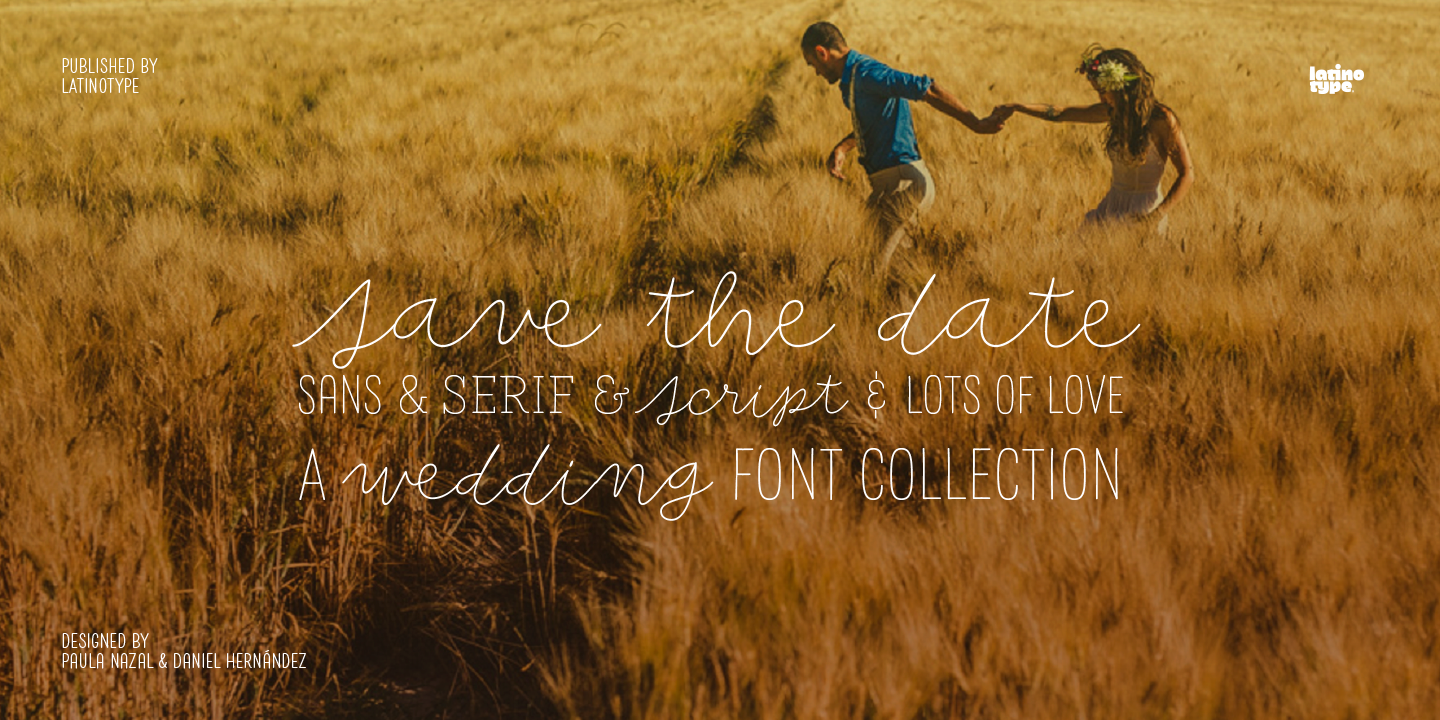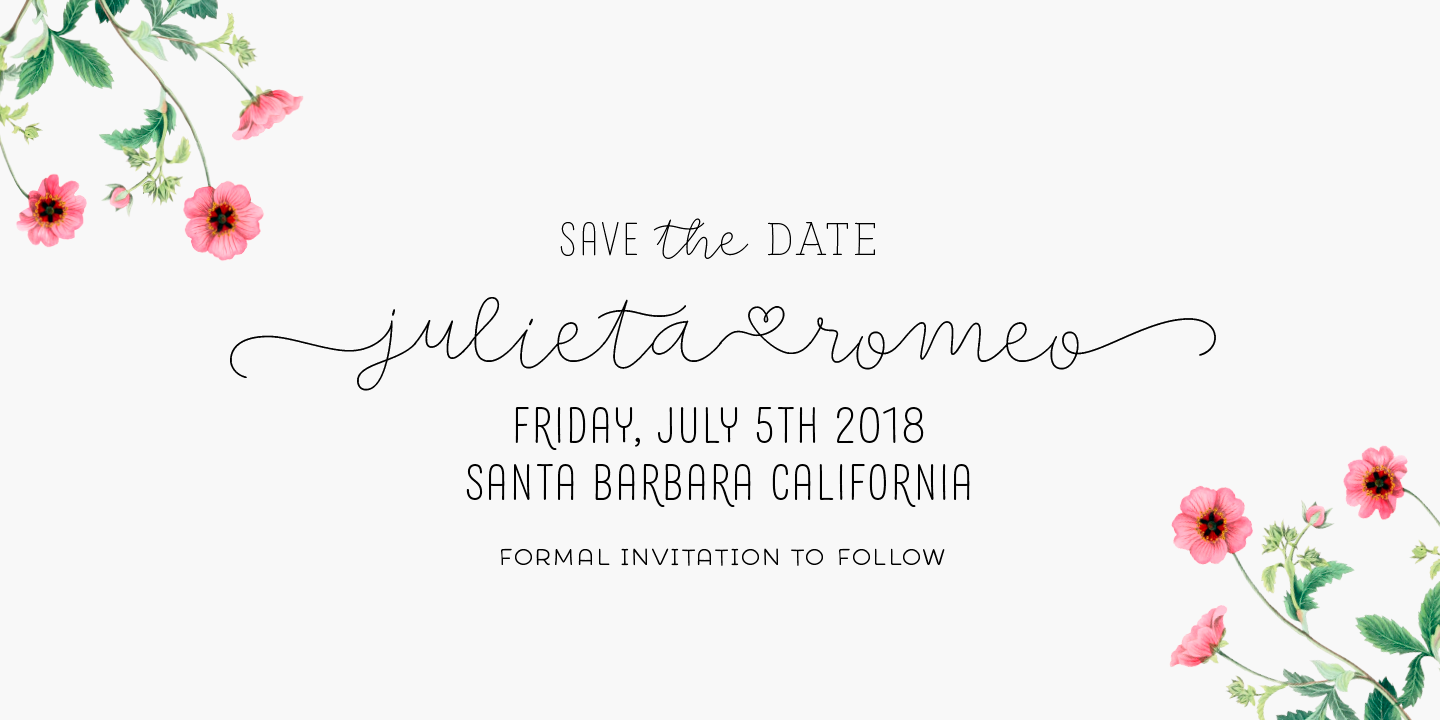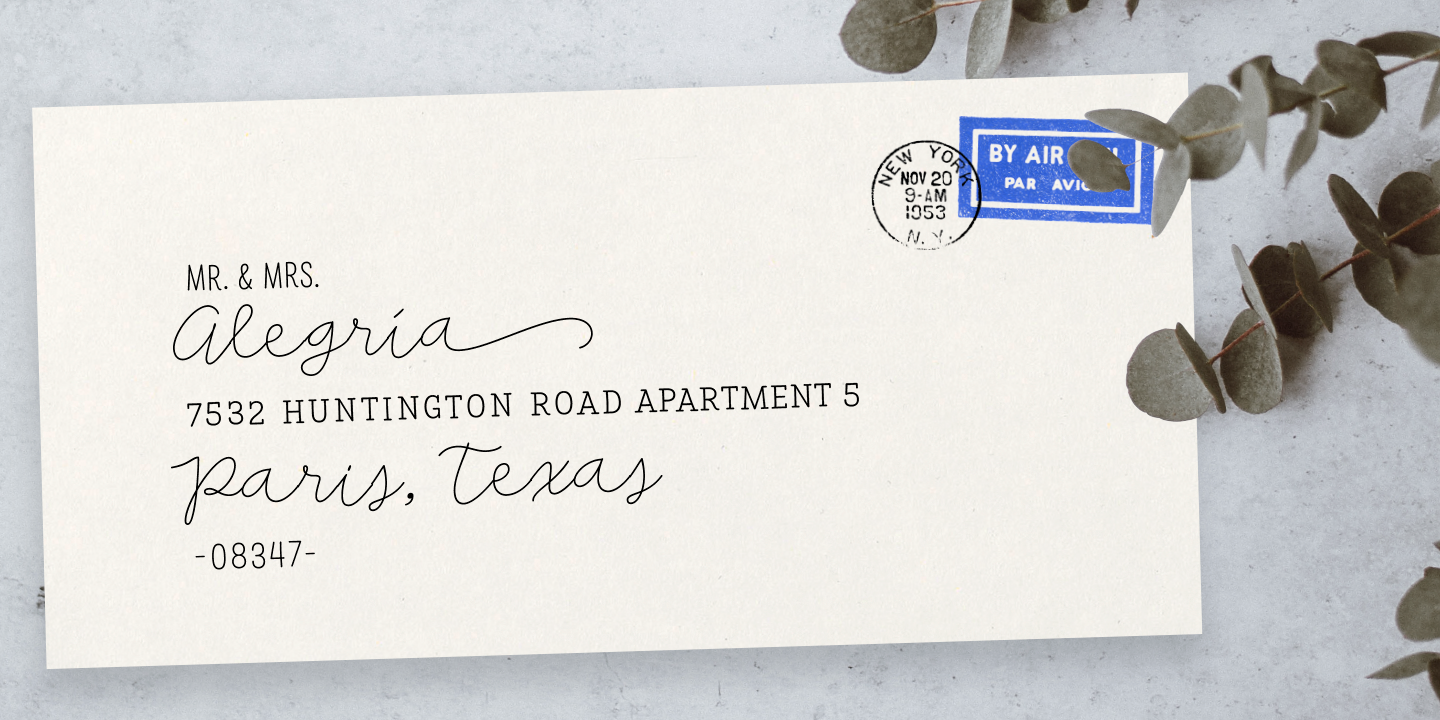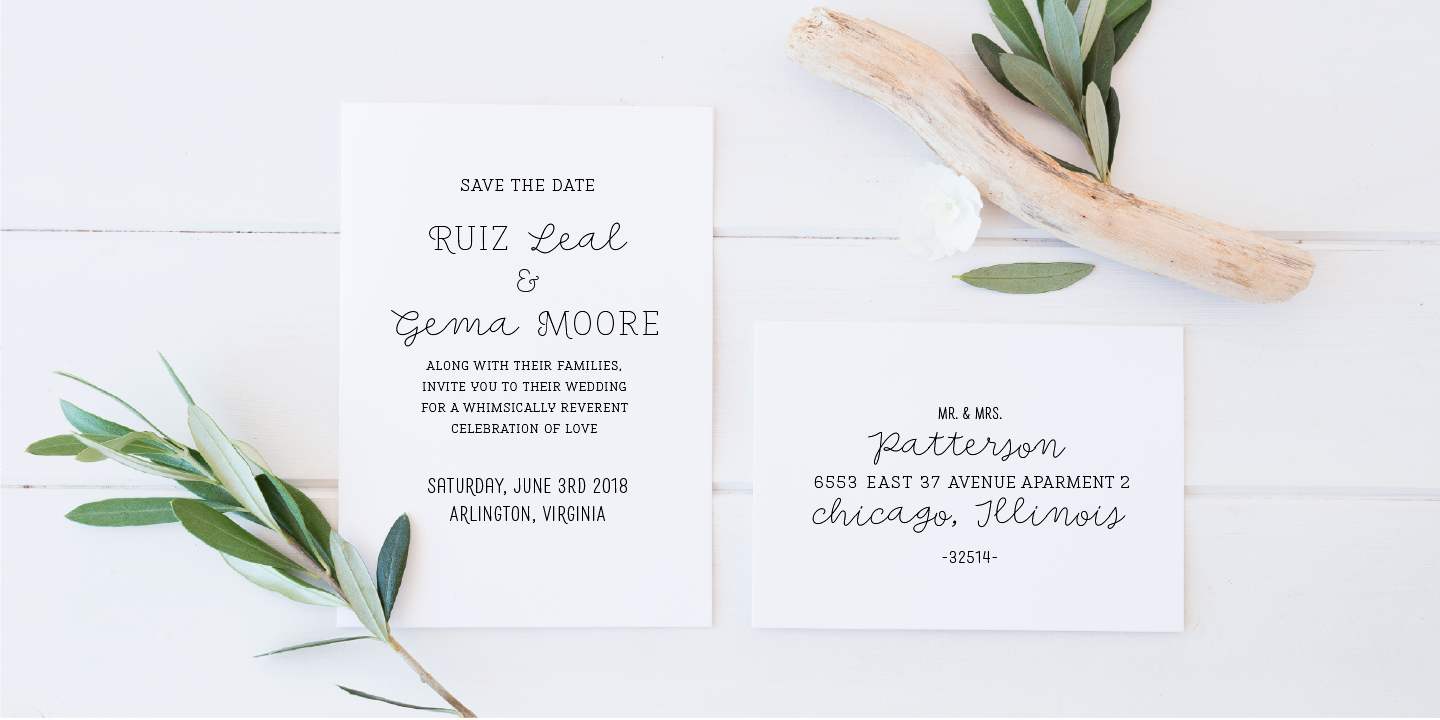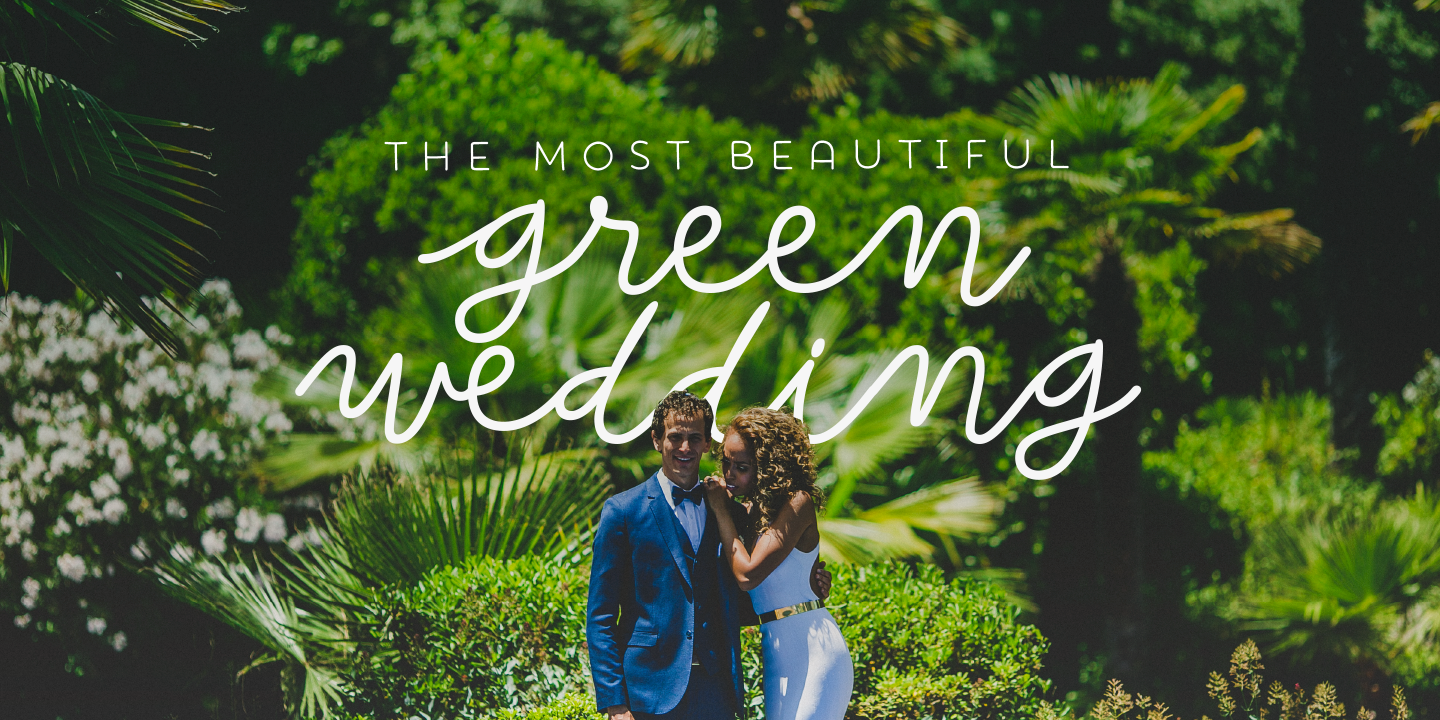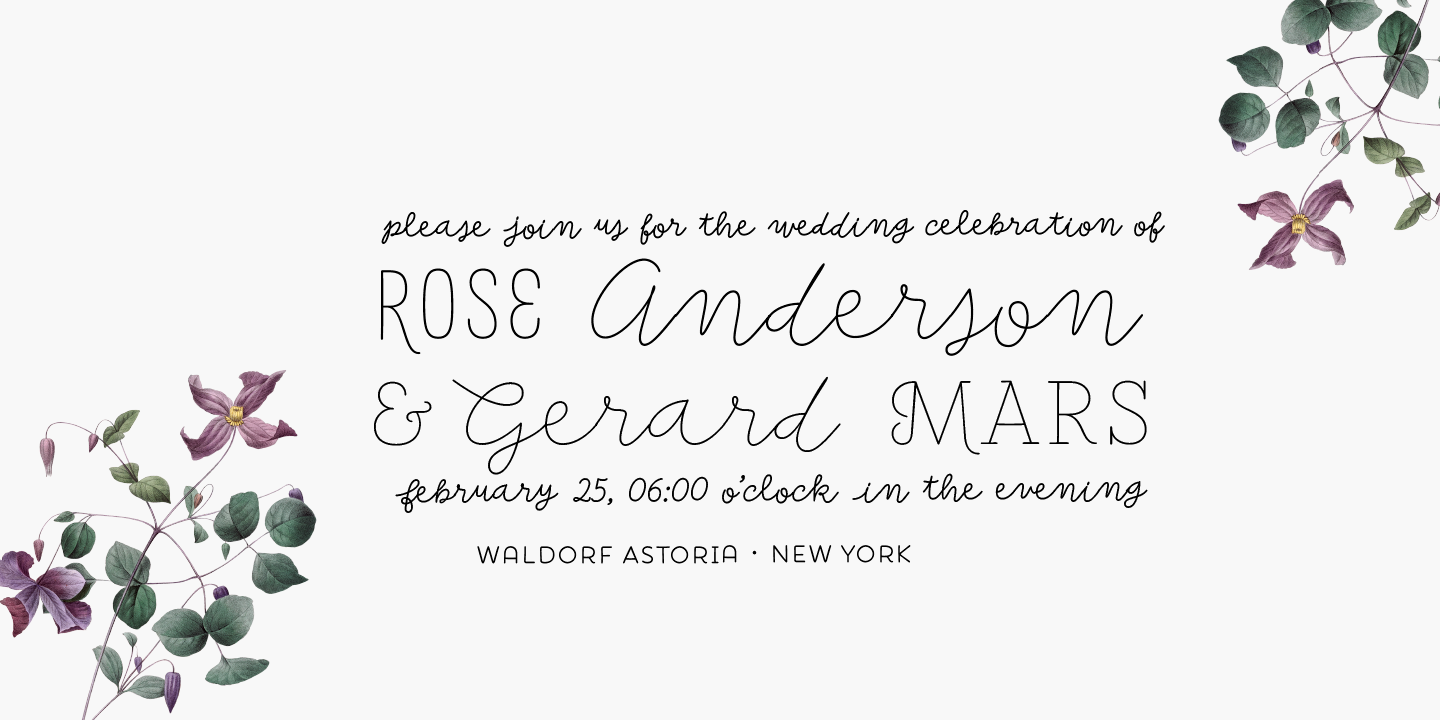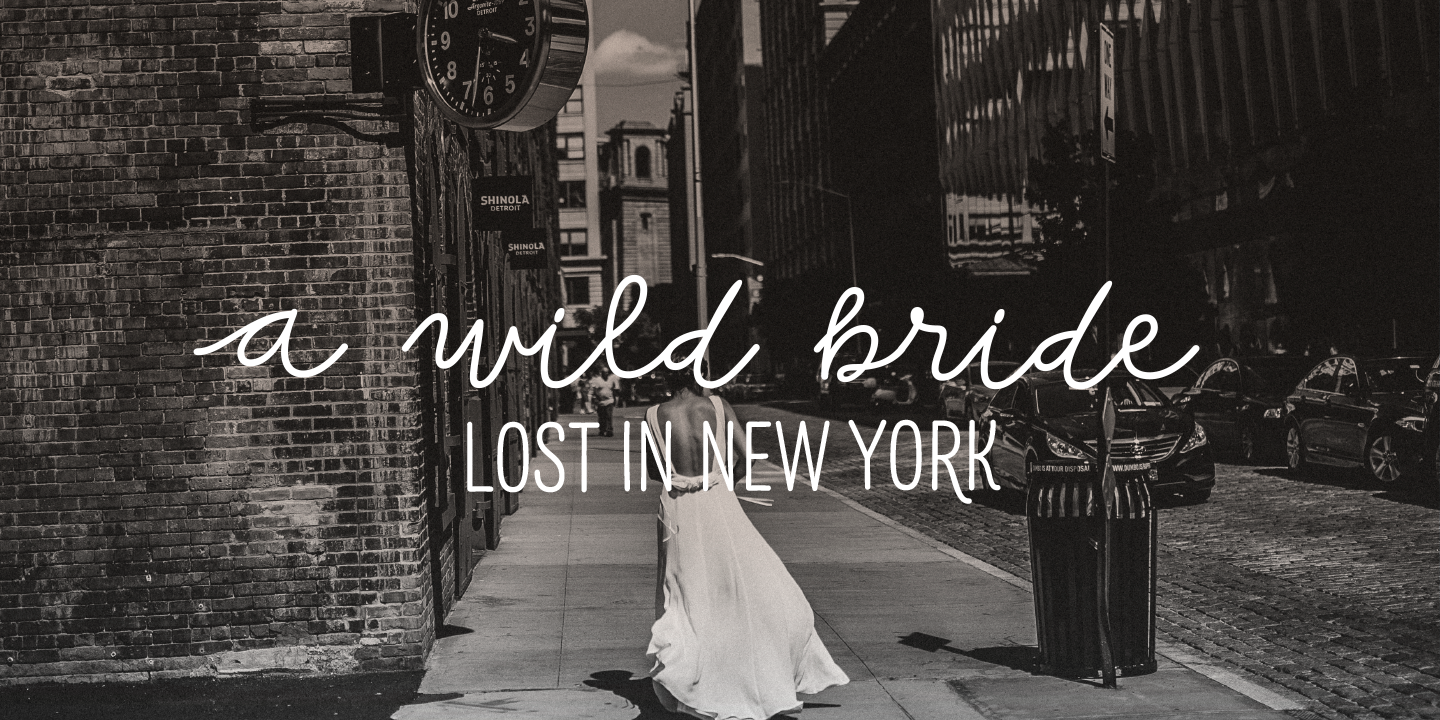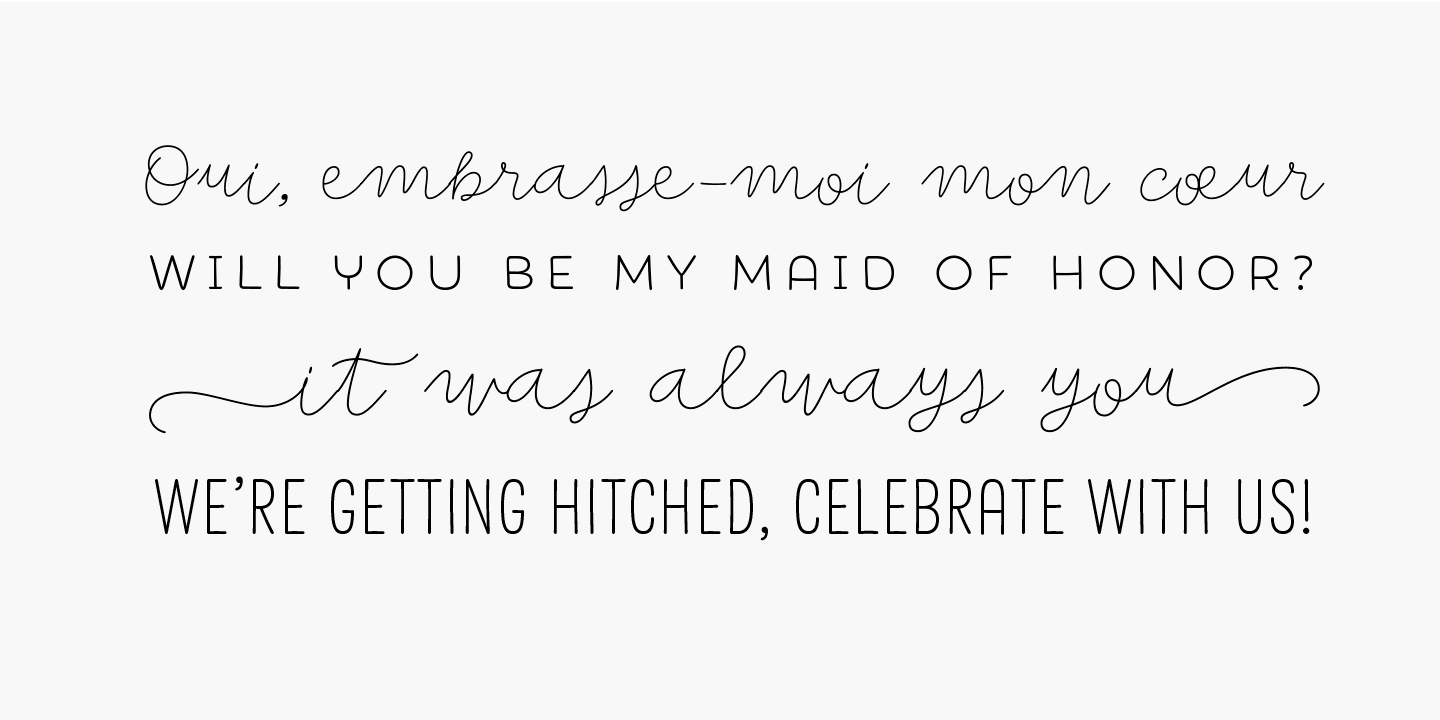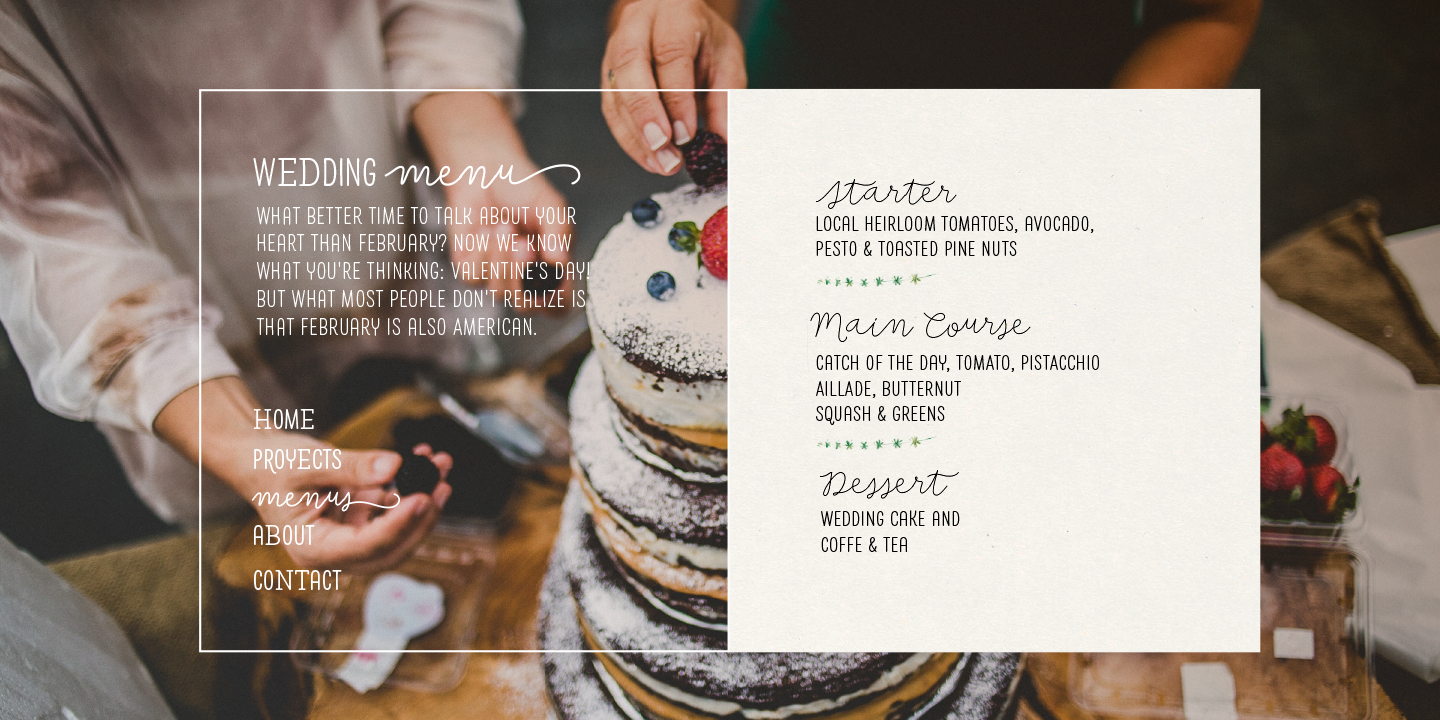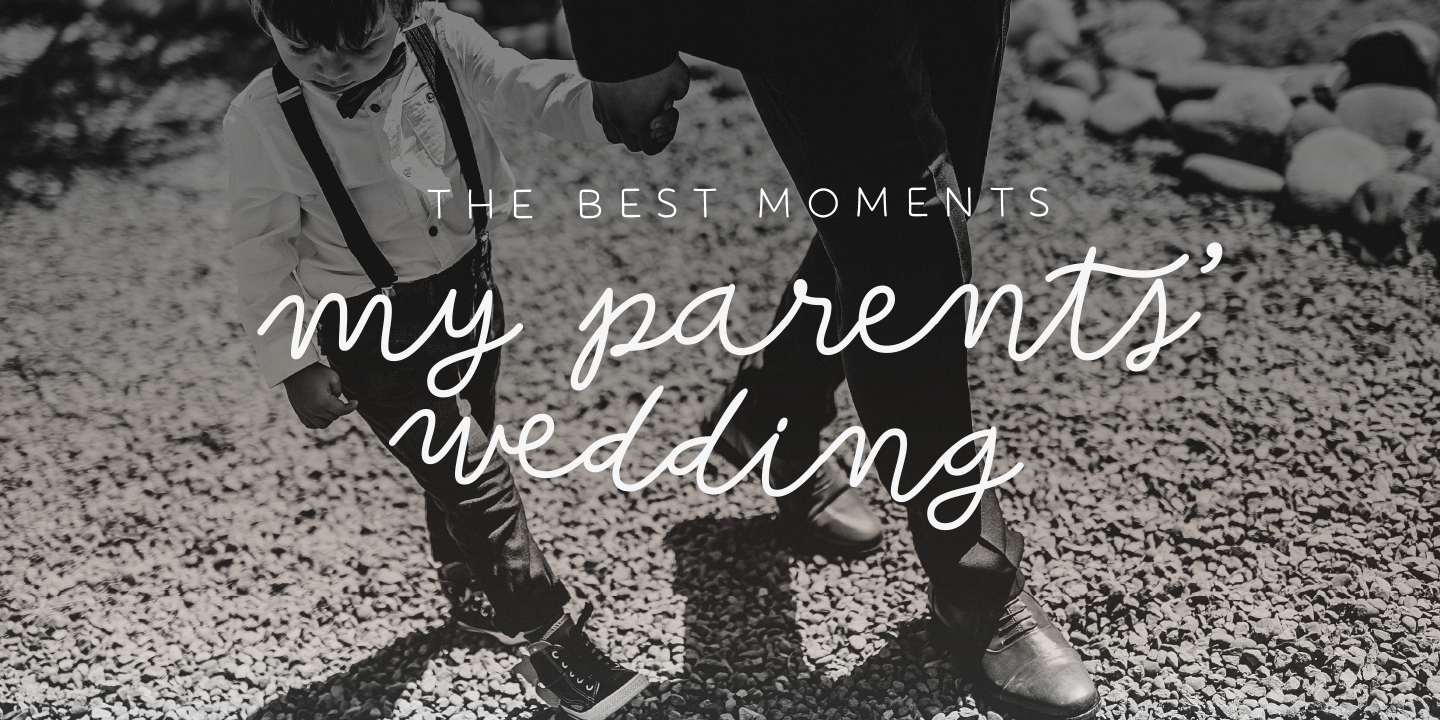
Save The Date Family (9 fonts)
Through this beautiful font, we would like to deliver to you that very message, you make it your own and express yourself in your own way—through the perfect invitation on your wedding day. No matter how sweet or wild your invitation looks, try to be yourself. Save the Date is a font collection consisting of 9 styles and 4 variants: Script, Sans, Serif and Small. The font set is intended to provide users with a wide range of choices for any design project.